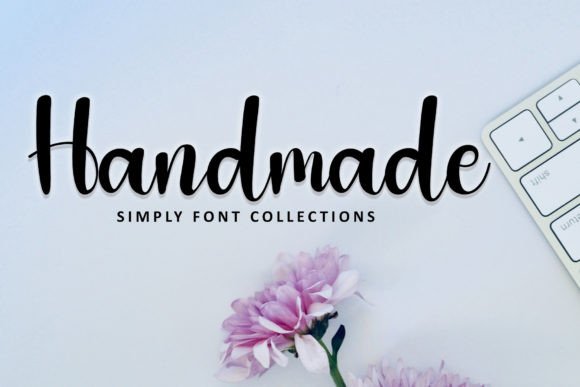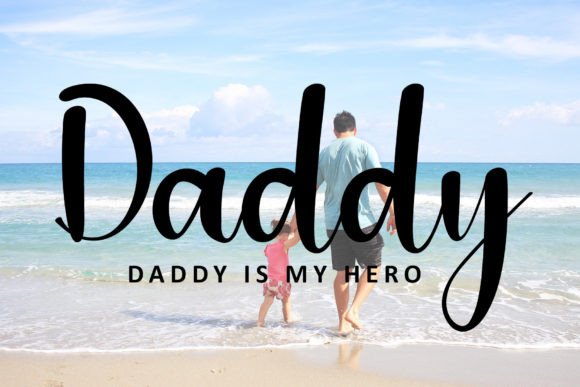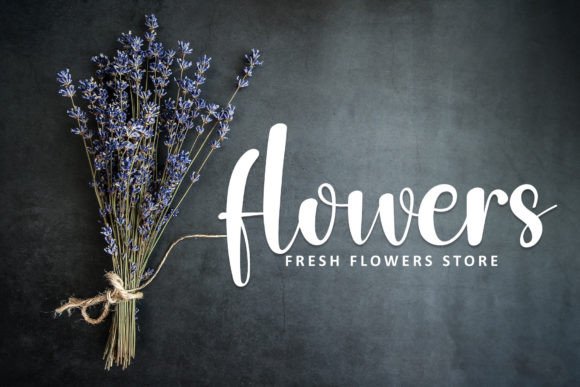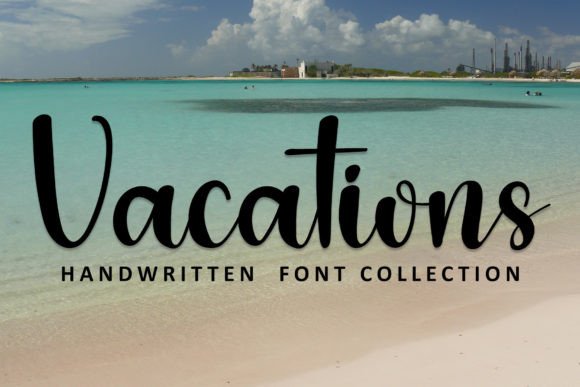
Discover the Elegance of Brother Font: Elevate Your Designs with a Timeless Handwritten Style
Are you on the hunt for a font that exudes elegance, sophistication, and a touch of timeless charm? Look no further than the Brother Font, a beautifully crafted handwritten font that is sure to capture your heart. With its incredibly distinct and classic style, Brother Font is the perfect addition to any design project, whether you’re a seasoned designer or a crafty DIY enthusiast.
The Characteristics of Brother Font
Brother Font is described by its neat and beautiful handwritten style, characterized by an elegant touch that sets it apart from other fonts. Its unique blend of classic and modern elements makes it an incredibly versatile font, suitable for a wide range of applications, from wedding invitations and branding materials to digital products and craft projects.
One of the standout features of Brother Font is its exceptional legibility, making it easy to read and understand, even at smaller font sizes. This, combined with its stylish and sophisticated appearance, makes it an excellent choice for designers and crafters looking to create visually appealing and effective designs.
The Benefits of Using Brother Font
So, why should you choose Brother Font for your next design project? Here are just a few benefits of using this beautiful handwritten font:
- Elegance and Sophistication: Brother Font adds a touch of elegance and sophistication to any design, making it perfect for high-end branding, wedding invitations, and other special projects.
- Versatility: With its unique blend of classic and modern elements, Brother Font can be used in a wide range of applications, from digital products to craft projects.
- Legibility: Brother Font is exceptionally easy to read, making it suitable for body text, headings, and other applications where clarity is essential.
- Timeless Style: Unlike trendy fonts that quickly go out of style, Brother Font has a timeless quality that ensures your designs will remain stylish and relevant for years to come.
How to Use Brother Font in Your Designs
Using Brother Font in your designs is easy, and there are countless ways to incorporate it into your work. Here are a few ideas to get you started:
- Wedding Invitations: Add a touch of elegance to your wedding invitations, save-the-dates, and other stationery with Brother Font.
- Branding Materials: Use Brother Font to create sophisticated branding materials, including logos, business cards, and letterheads.
- Digital Products: Incorporate Brother Font into your digital products, such as ebooks, workbooks, and printables.
- Craft Projects: Add a personal touch to your craft projects, including handmade cards, gift tags, and other paper crafts.
Tips for Getting the Most Out of Brother Font
To get the most out of Brother Font, here are a few tips to keep in mind:
- Experiment with Font Sizes: Brother Font is legible at a range of font sizes, so don’t be afraid to experiment to find the perfect size for your design.
- Pair with Other Fonts: Brother Font pairs well with a range of other fonts, so try combining it with bold sans serifs or elegant script fonts to create visual interest.
- Use in Combination with Images: Brother Font looks beautiful in combination with images, so try using it to add text to your photos, illustrations, and other graphics.
In conclusion, Brother Font is a beautiful and elegant handwritten font that is sure to elevate your designs. With its timeless style, exceptional legibility, and versatility, it’s the perfect addition to any design project. Whether you’re a seasoned designer or a crafty DIY enthusiast, Brother Font is sure to inspire your creativity and help you create spectacular designs.